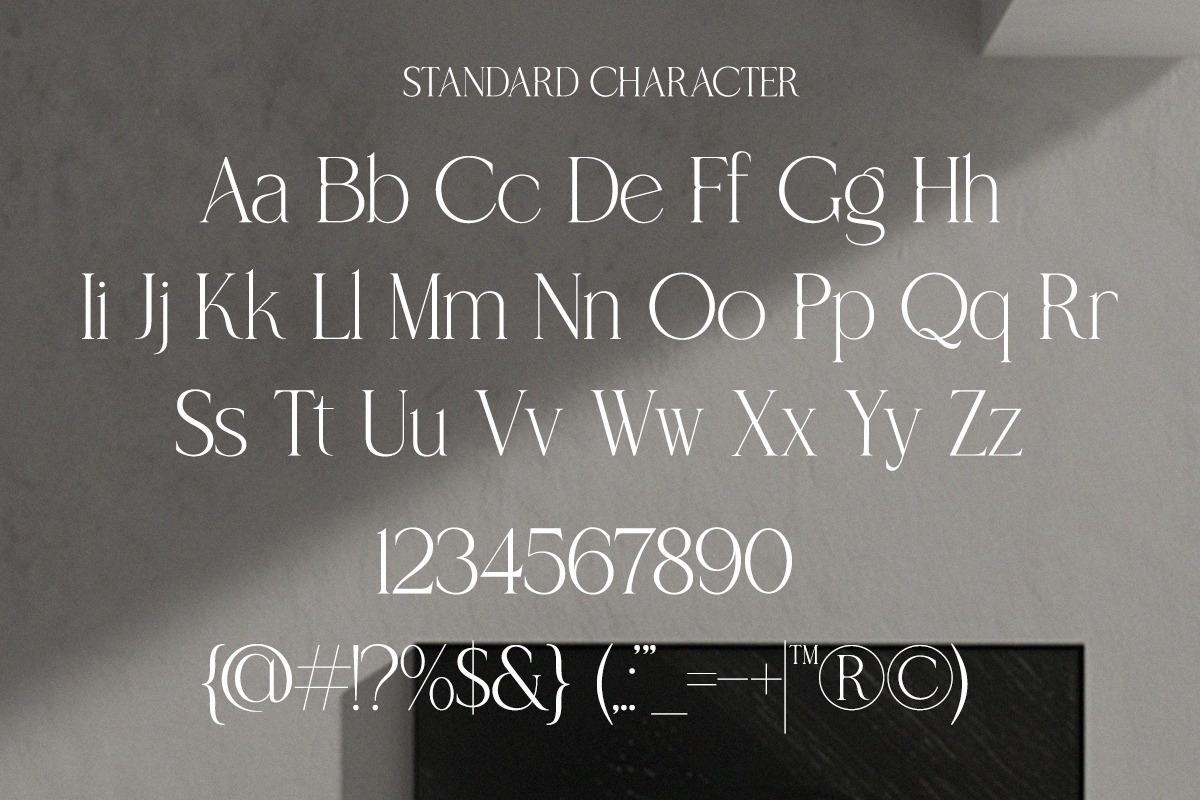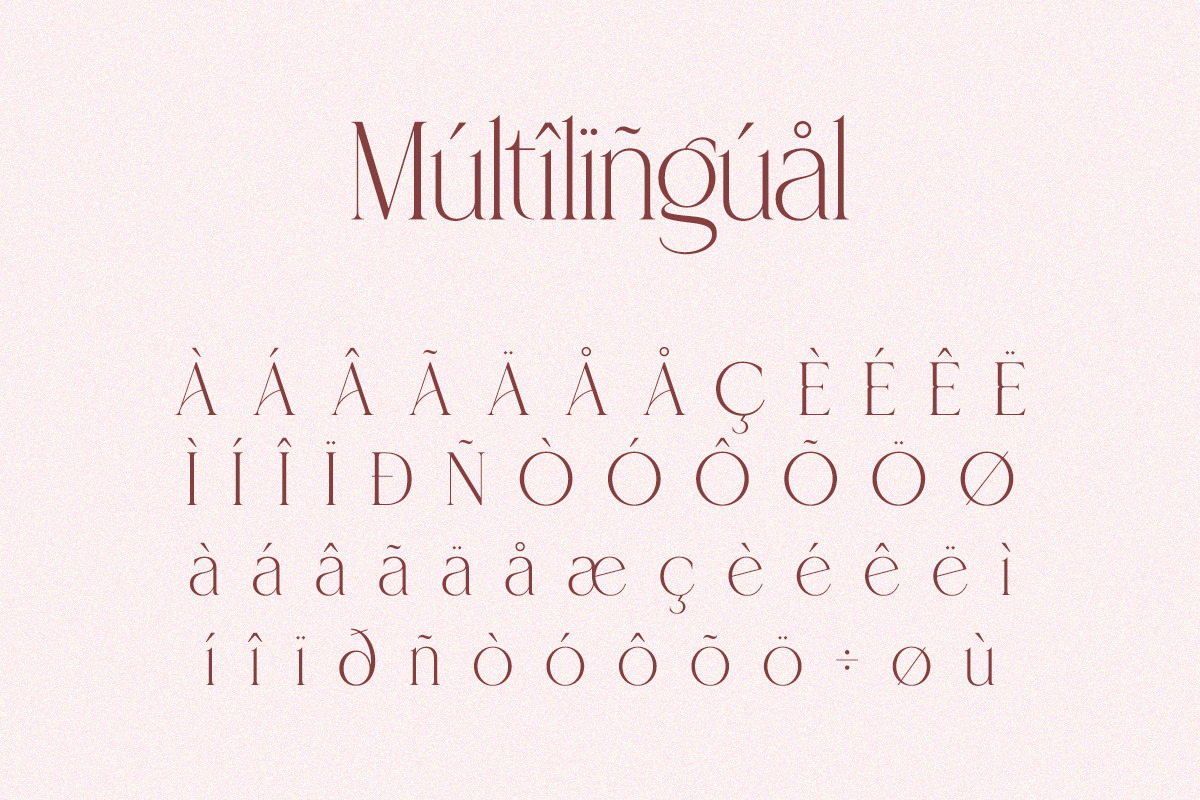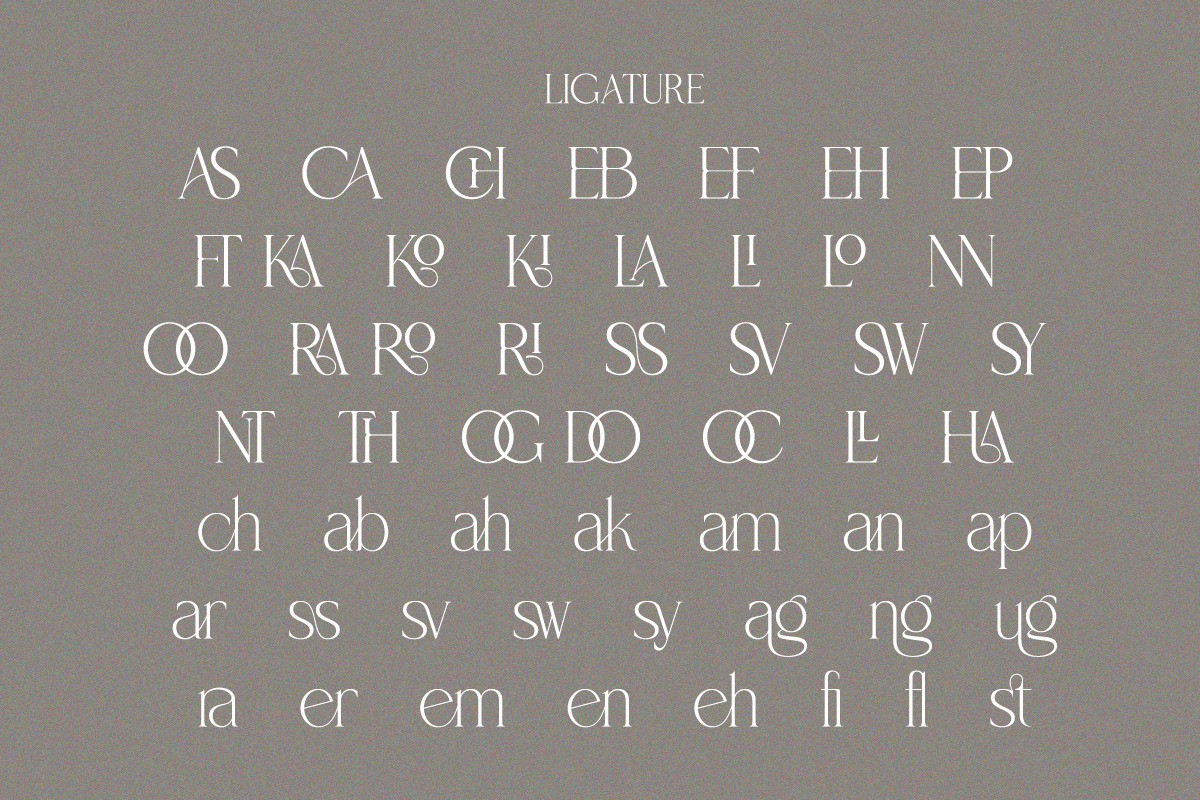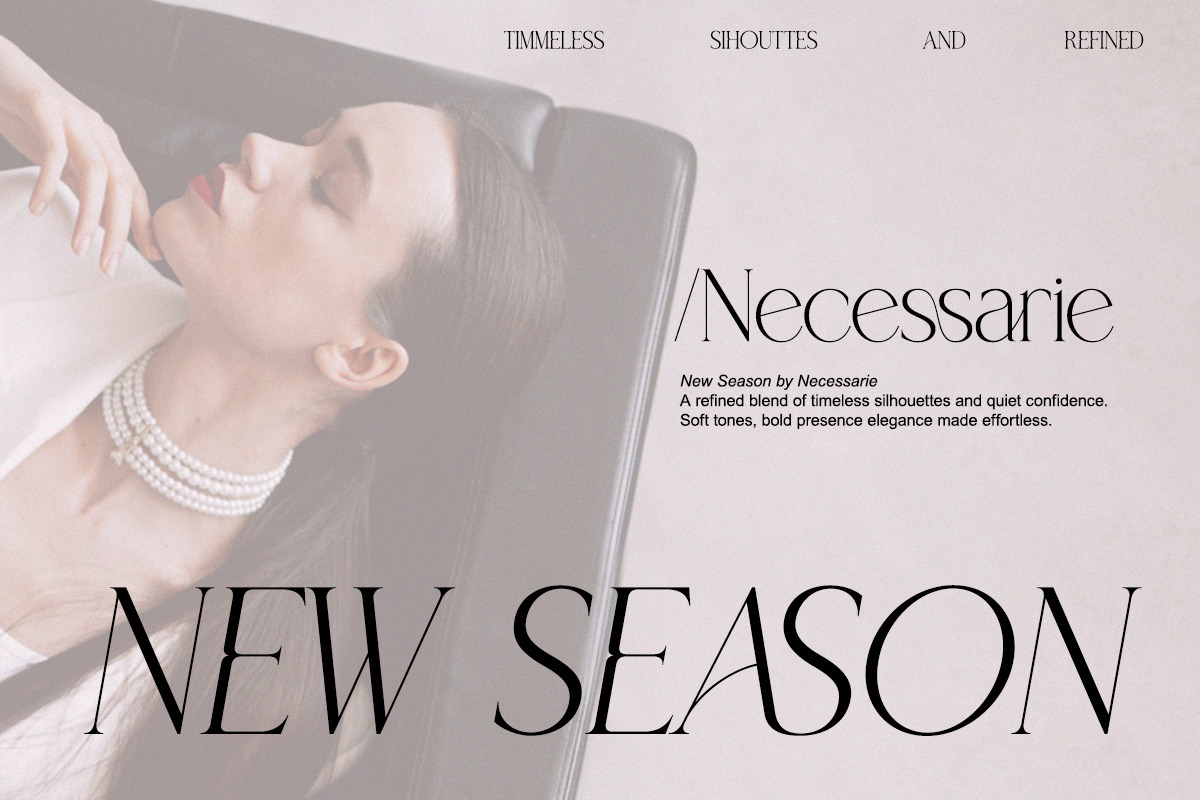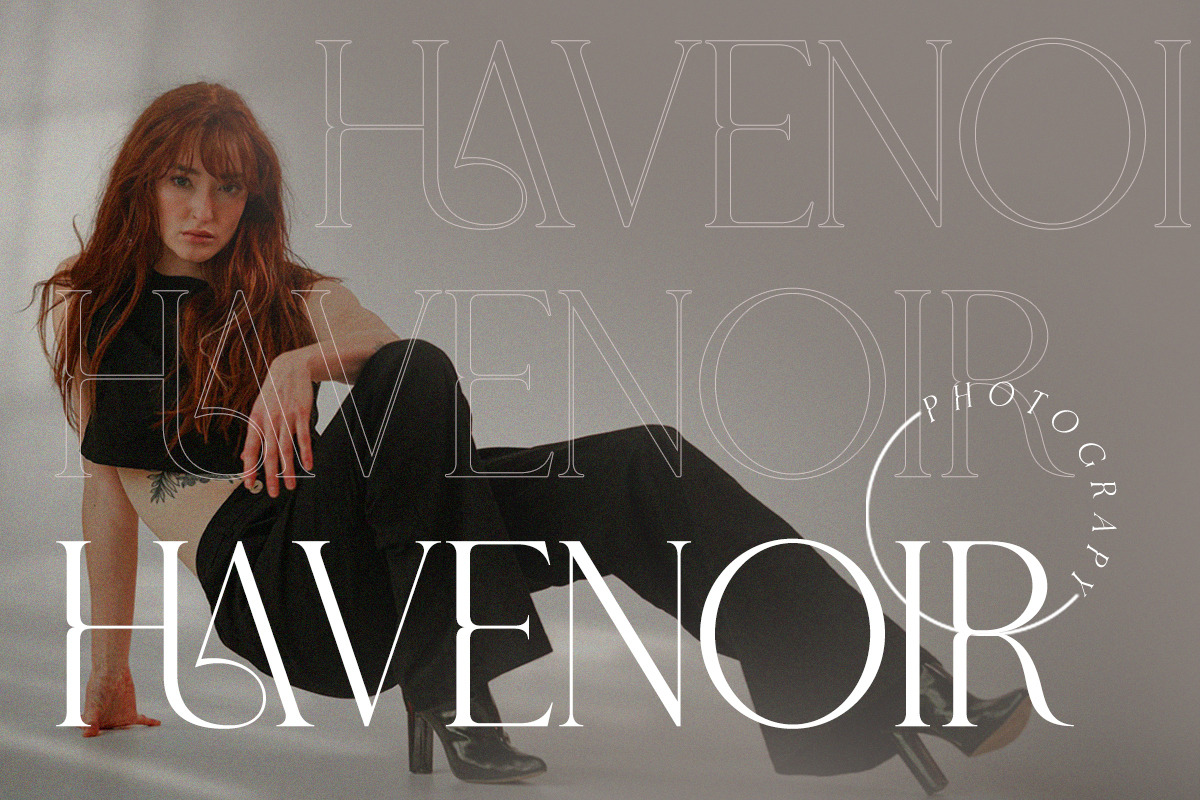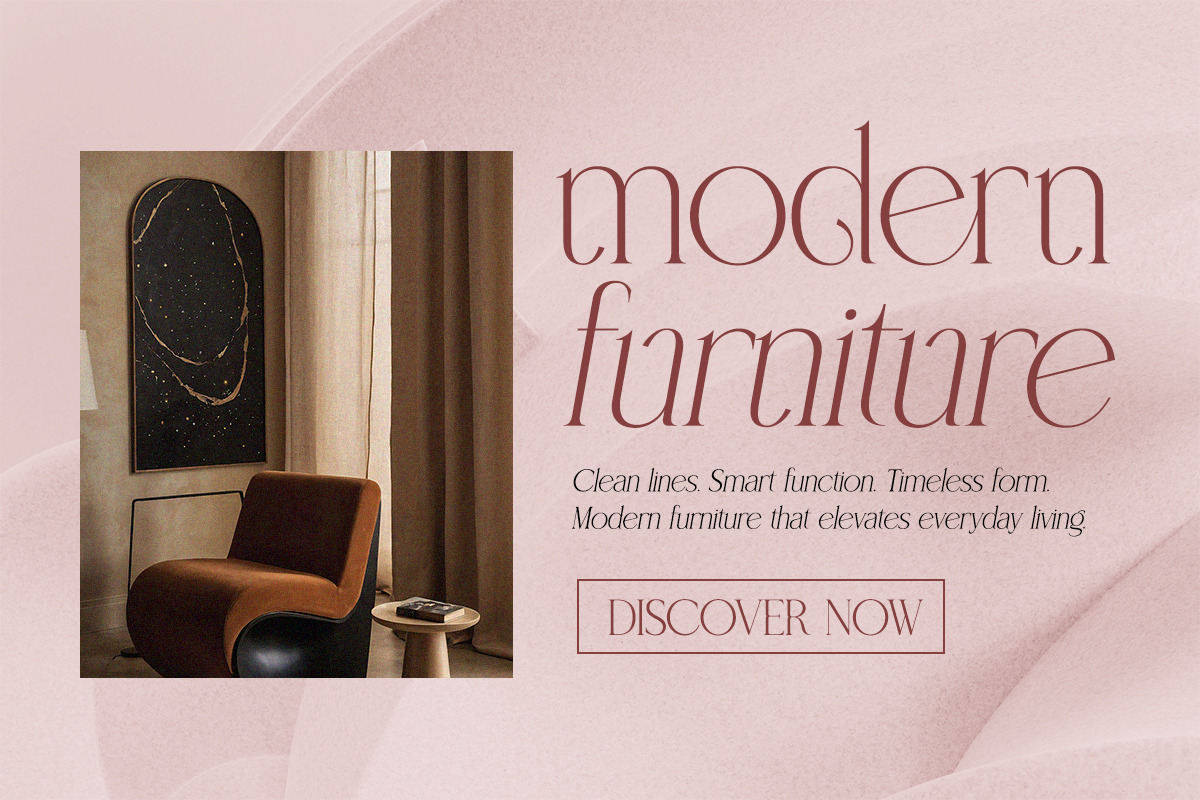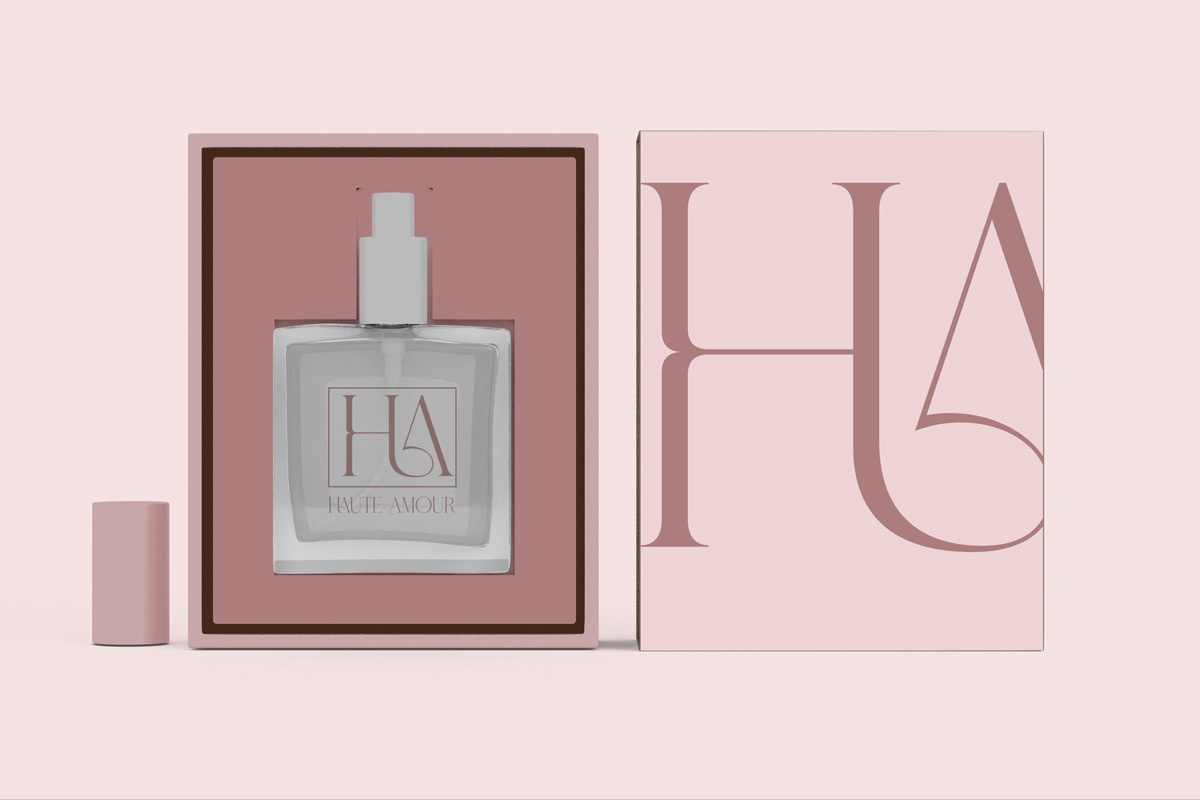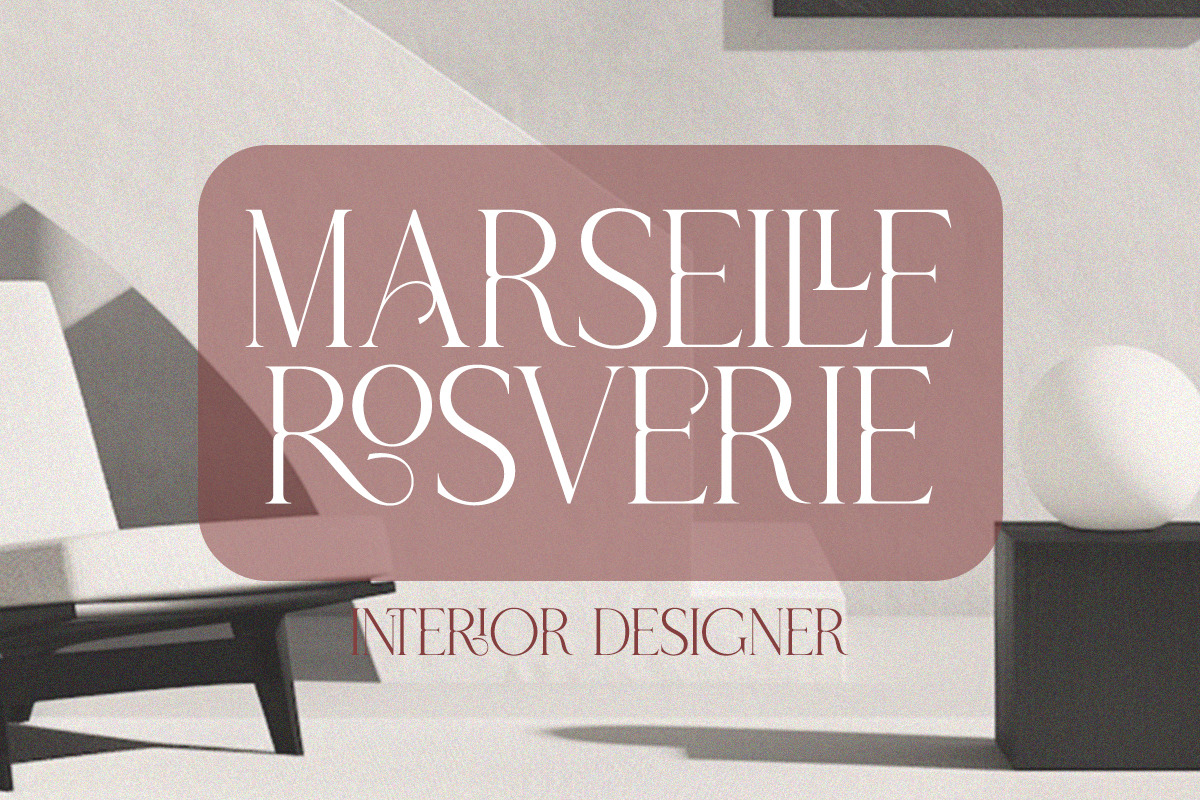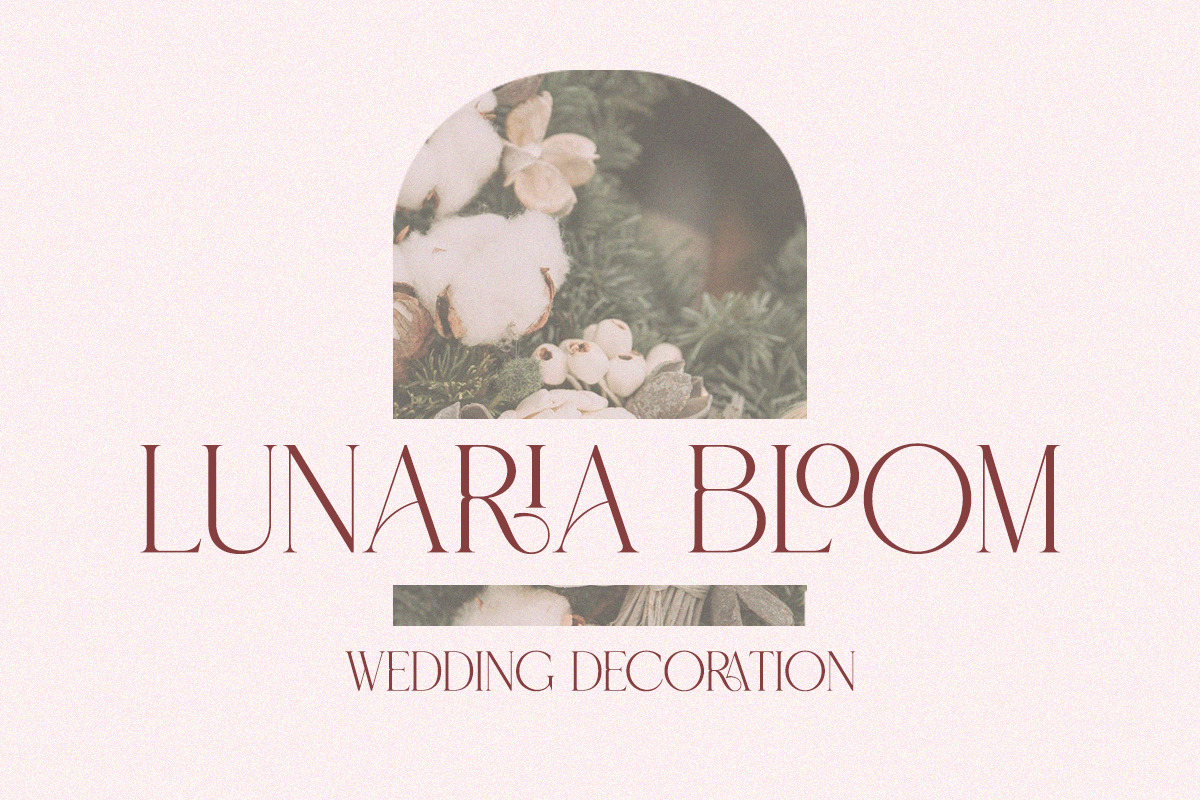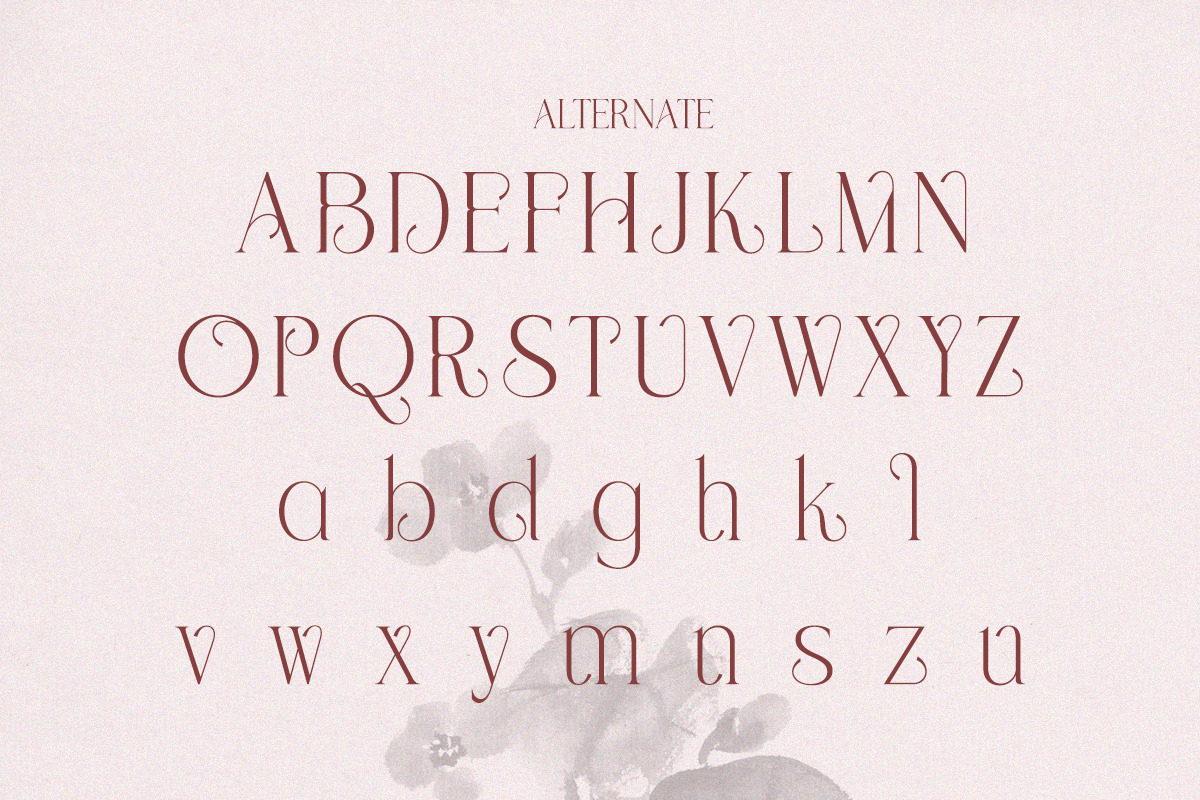
Latqira - Modern Elegant Luxury
Latqira is a sophisticated modern serif font designed with elegance, refinement, and timeless luxury.
With its graceful strokes, sharp contrasts, and stylish ligatures, Latqira stands out as a premium serif typeface crafted for high-end projects. It embodies a perfect balance of minimalism and luxury, making it ideal for logos, branding, packaging, magazines, wedding invitations, and fashion editorials. Every curve and detail is infused with elegance, giving your designs a professional and polished look.
- Modern elegant serif style
- Stylish ligatures & alternates
- Regular & italic versions
- Luxury brand identities
- Editorial & magazine layouts
- Wedding invitations & stationery
- Fashion and beauty logos
- Premium packaging design
- Social media templates & digital ads
Transform your design projects with timeless beauty and high-class sophistication.